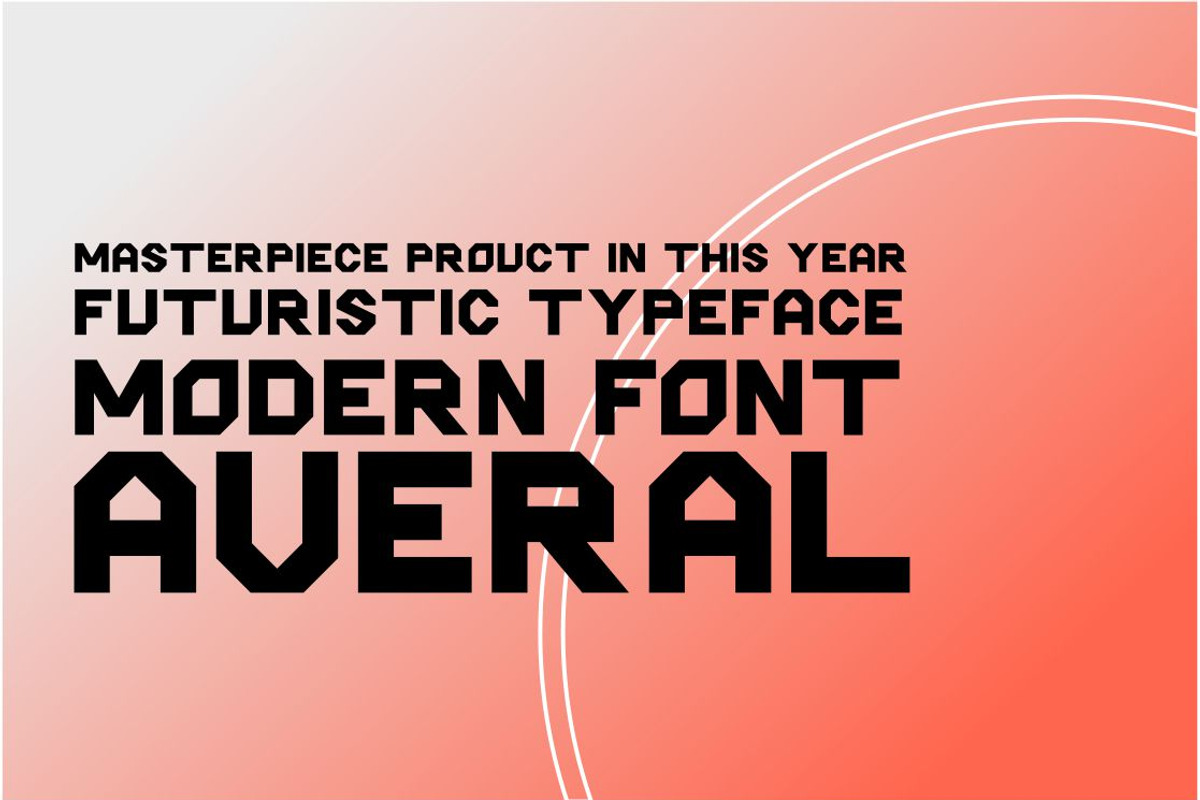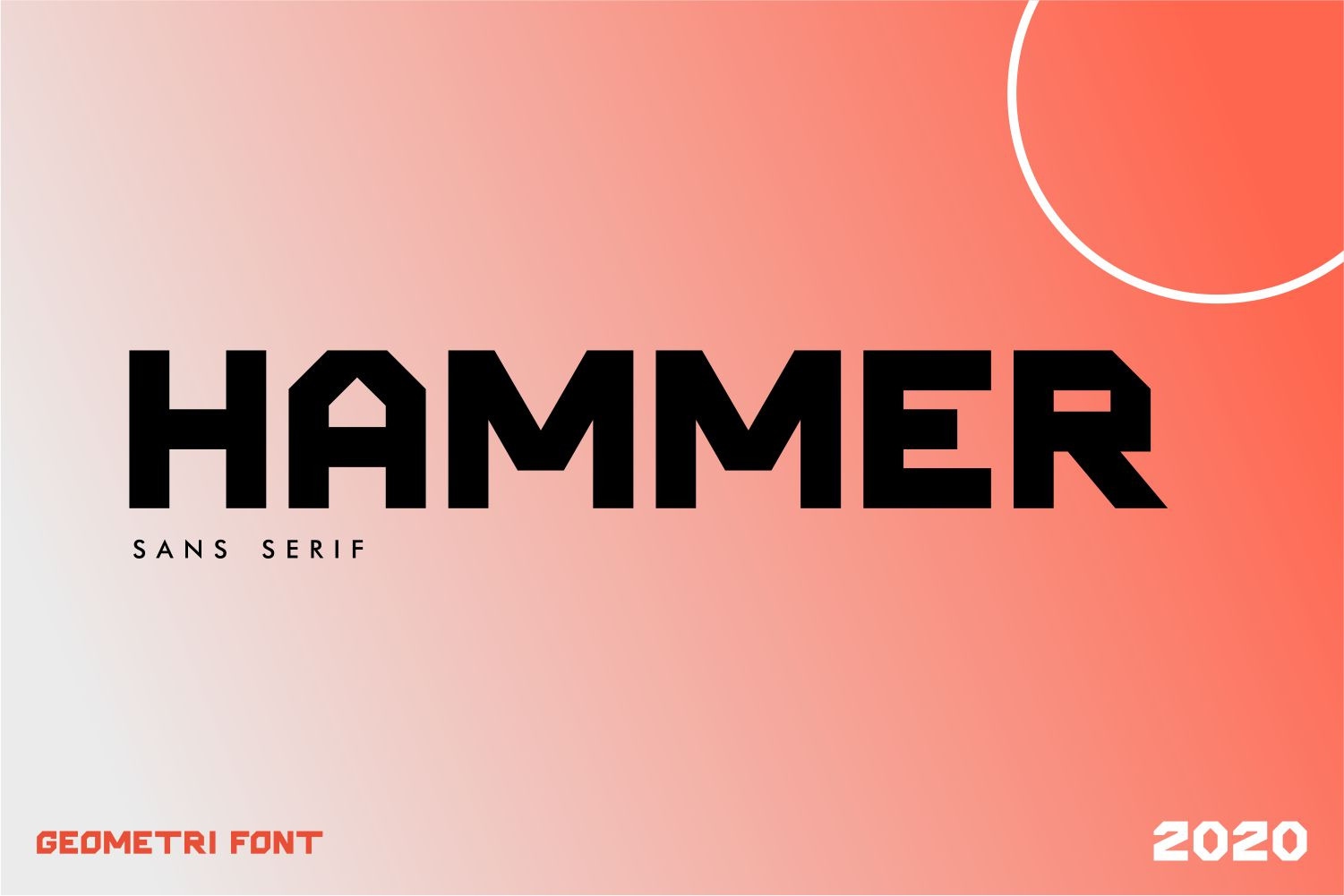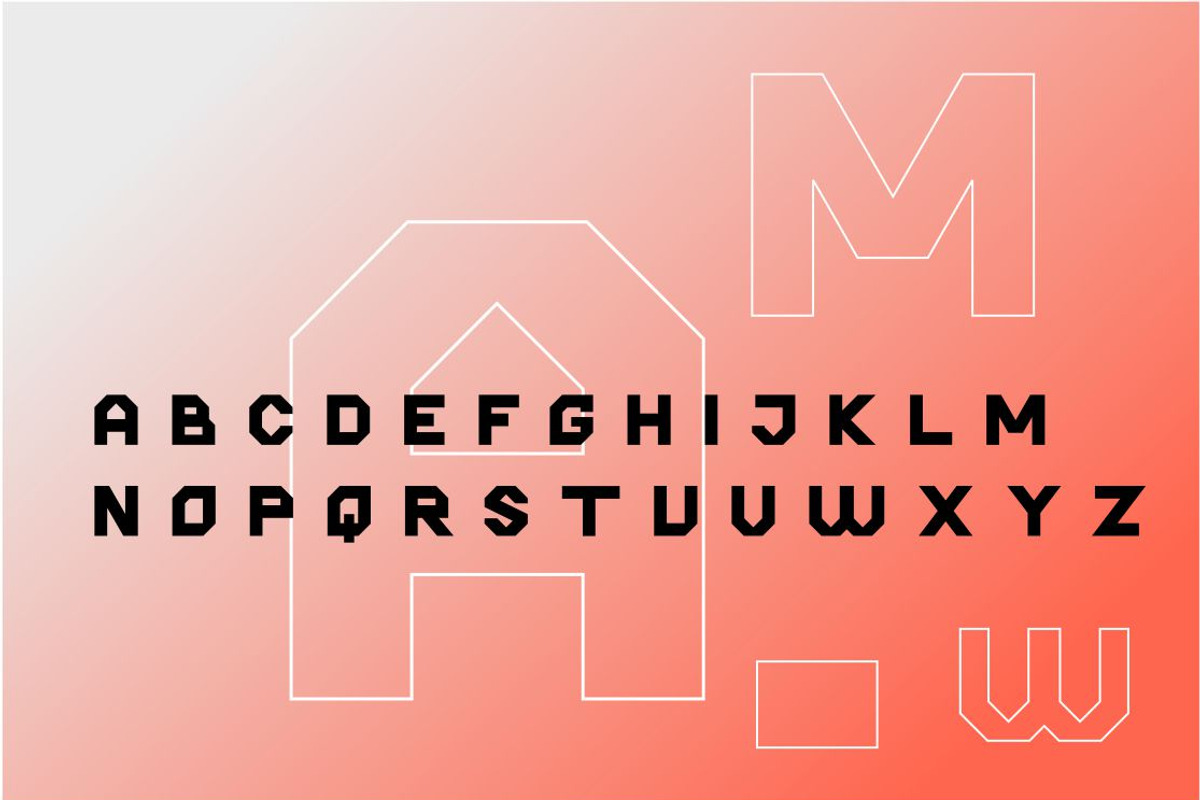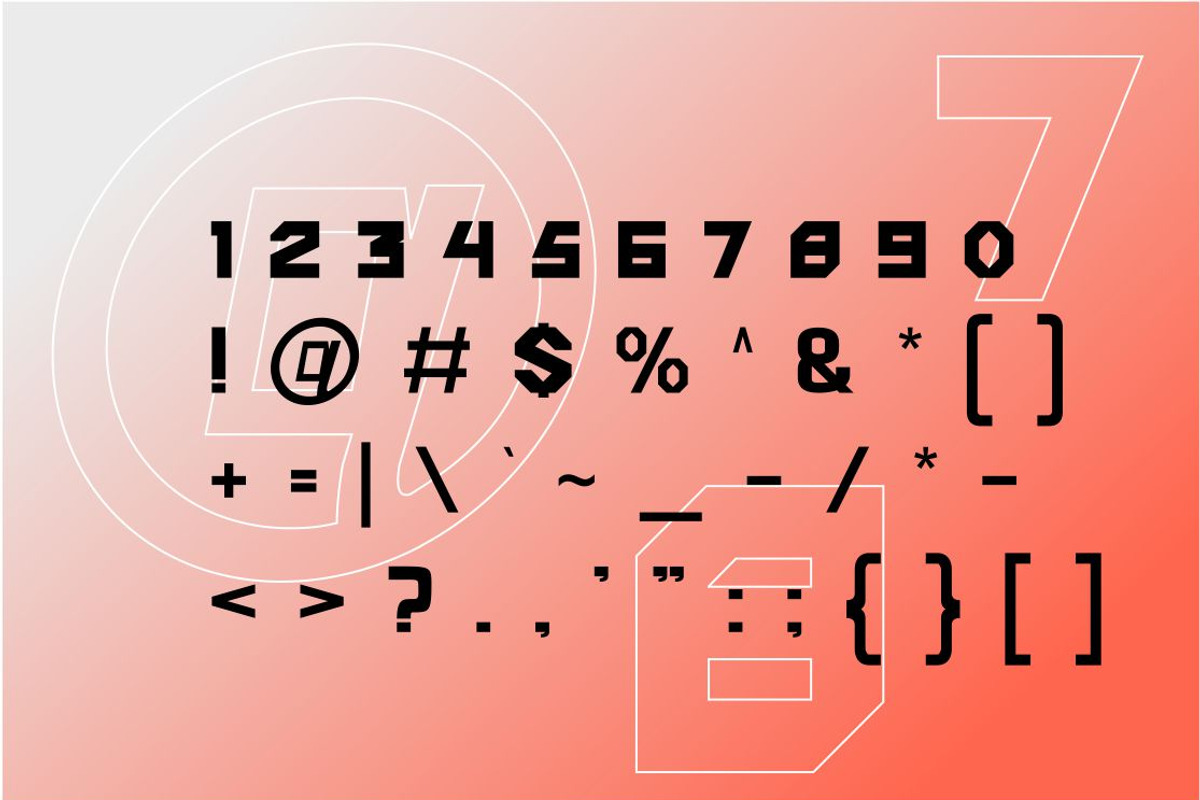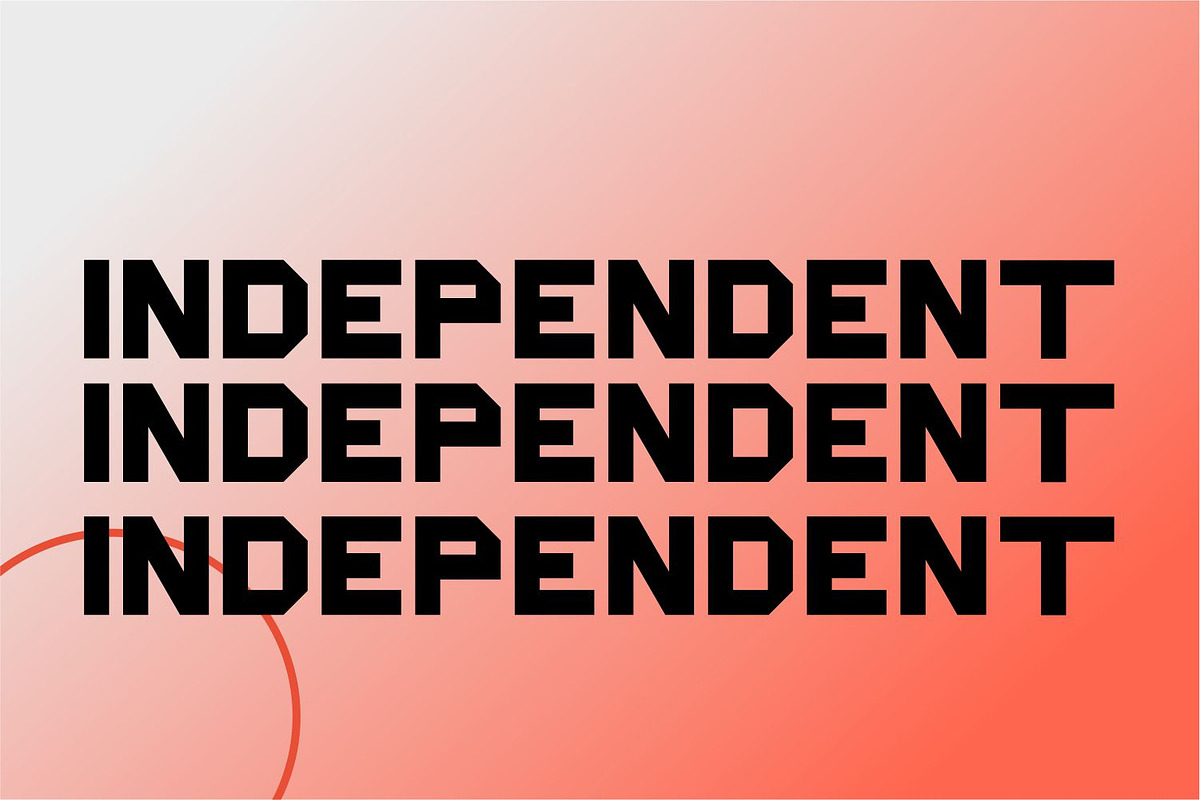
Hammer Font | Futuristic Font
The Hammer Font is a dynamic and futuristic typeface that exudes power and innovation. With its bold letterforms and sleek design, this font is perfect for projects seeking a cutting-edge and forward-looking aesthetic. Whether it’s for branding, digital artwork, or futuristic-themed designs, the Hammer Font will infuse your creations with a sense of energy and modernity. Elevate your designs to the next level with the Hammer Font.